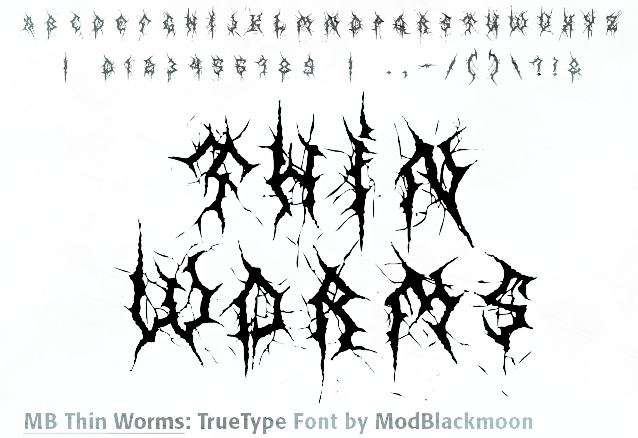
Irina ModBlackmoon
Minsk-based Belarussian, b. 1987. Creator of "gothic" and "broken" Latin and Cyrillic fonts like Wings of Darkness (2015), Bad Behaviour (2015), Ancient Runes (2015), Last Words from Earth (2015, ink splatter script), Blood Blocks (2015, a dripping blood font), Gothic Spell (2015, blackletter/tattoo font), MB Thin Worms (2013, a spiked horror black metal font), MB Think Twice (2012, gothic face), MB Demonic Tale (2012), MB Underground (2012), MB Forever Raw (2012), MB Element (2012, +Brutalized: horror fonts), MB Real Grinder (2011), MB Evil Ghost (2010), MB Slavonic Minsk (2010), MB An Old Witch (2010), MB Before The End (2010), MB Horror House (2010), MB Poisoned Type (2010), MB Gravitation (2010), MB-Alien Report 72 (2010), MB-Graveyard-Designs (2010), MB-TheGreatReaper (2010), MB Arcane Gothic (2009), MB-Back for Death (2009), MB-Lords of Evil (2010), MB-BlackBookType (2009), MB-ElvenType (2009), MB-GothicDawn (2009), MB-InDigit (2009), MB-RustyIron (2009), MB TyranT (2009), MB-DigitalReality (2009). Devian Tart link. Dafont link. Another link. Home page. Old link. Abstract Fonts link. |